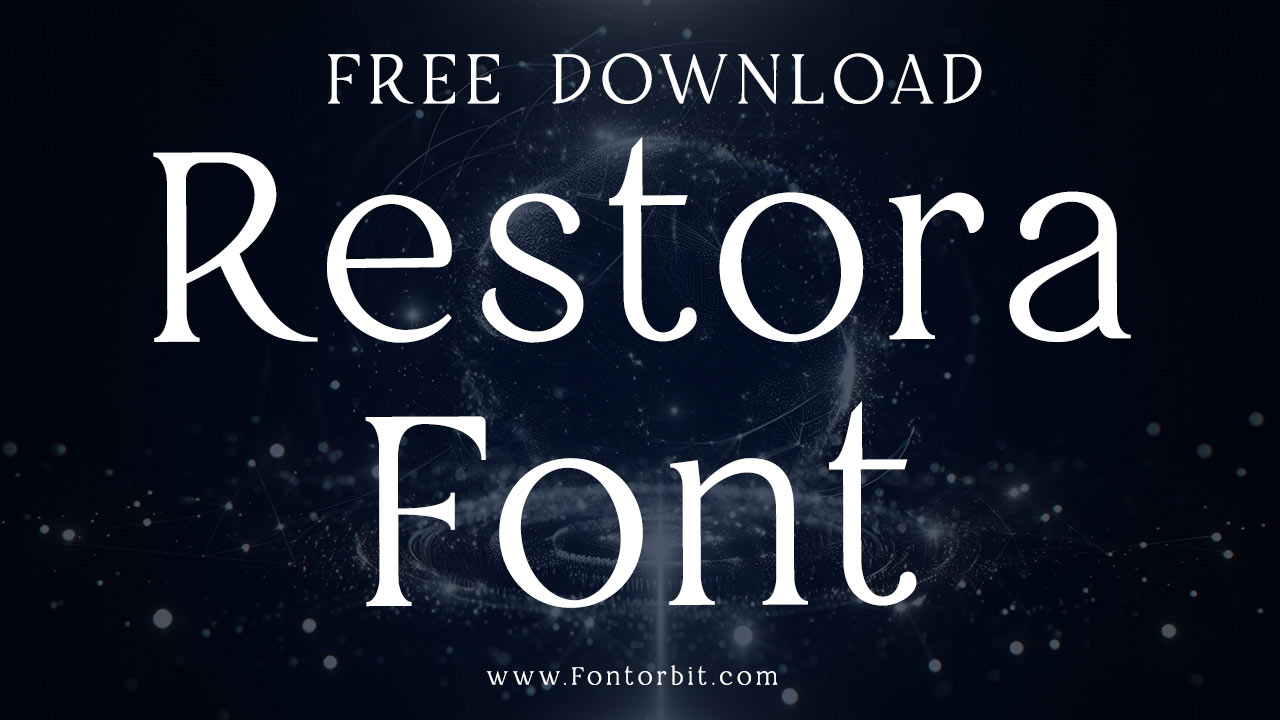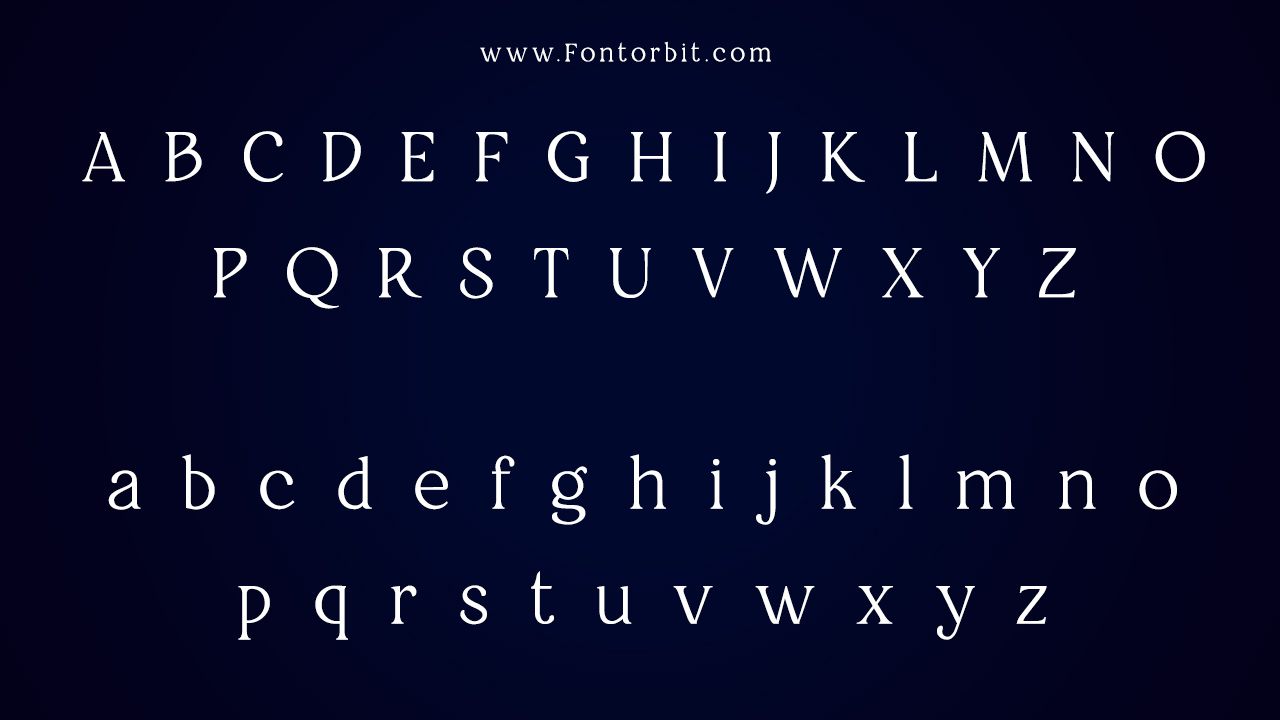
Restora is a charming old-style serif font that exudes classic elegance. Designed by Nasir Udin and published by Nasir Udin. Restora was published to bring a touch of vintage sophistication to modern typography.
As part of a versatile font family, Restora is ideal for a range of creative projects. Restora includes a comprehensive set of 16 styles and family package options.
Restora Font Family Includes
Restora offers a variety of styles to suit different needs:
Each variant provides its own unique flair, making the Restora family a flexible choice for any design project.
Notable Uses Of Restora
Restora is perfect for:
- Book Covers: Its timeless style adds a classic touch to literary works.
- Invitations: Ideal for formal events and elegant occasions.
- Branding: Suitable for businesses seeking a sophisticated, classic look.
Restora’s old-style serif design is best used in contexts where a touch of tradition and elegance is desired. This includes print materials, high-end branding, and any project aiming to evoke a sense of timelessness and class.
Restora is a versatile serif font family that offers a wide variety of 16 styles, making it a robust choice for any design project. Whether you need a delicate Thin style or a bold Black variant, Restora provides the flexibility and classic elegance necessary for creating standout designs.
Its wide range of options ensures you can achieve just the right look for everything from sophisticated branding to elegant print materials. With Restora, you’re equipped with a timeless typeface that adapts seamlessly to diverse creative needs.